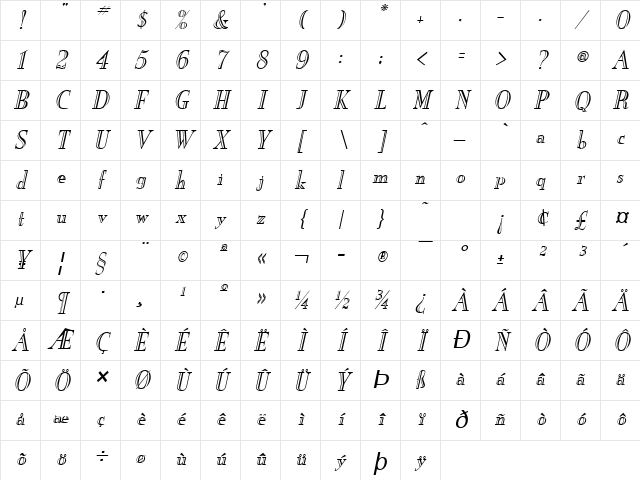
Complete New England-Engraved Italic glyph index. Displaying only characters natively supported by New England-Engraved Italic font.
New England-Engraved is built around its visual character rather than neutral utility - its distinctive forms are designed to make an impression at display sizes. The slanted form adds forward momentum and visual energy.
Font Pairing: Pair with a clean neutral sans-serif for body copy to let New England-Engraved's character lead without overwhelming the composition.
Pro Tip: Use New England-Engraved exclusively at display sizes - it was designed to be seen, not read at length. Let a neutral companion handle body copy.